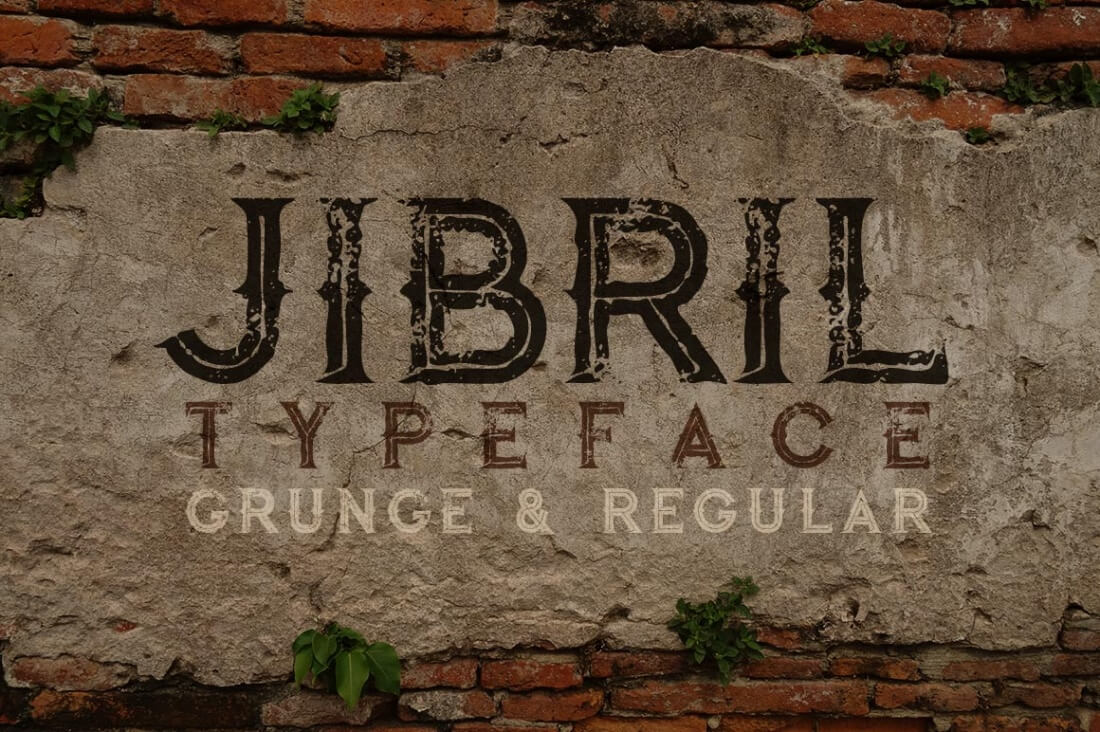
Merge the past with the present, thanks to this incredible Mighty Deal! This mega bundle offers up 12 fantastic font families, all done in a retro, vintage and grunge style. Counting in a variety of different styles, you'll take home 48 unique fonts in 1 super-discounted package! But there's more! Many font families also feature bonus graphic elements such as logo templates, badges and even hi-res textures.
Highlights:
- Grab hold of an even dozen Font Families with this terrific typeface collection!
- With the various font styles (from regular to bold to inline), this mega collection includes 48 unique fonts!
- Whether you're looking to go vintage, modern or futuristic (or any combination of those!), this collection is sure to meet your needs.
- Many font sets include bonus graphics such as textures, logo or badge templates and more.
- Where to use these fonts? Just about anywhere you'd like! They're perfect for posters, T-shirts, stickers, signs, Web templates and more.
Take a closer look at the 12 font families included in your deal:
Almanac
Be big and bold with Almanac, a modern grunge font with 4 different styles.
Anabel
Add a cool vintage style to your artwork with the Anabel Family, made up of 4 regular and grunge fonts.
Atara
Vintage meets modern with the grunge-filled Atara font family, sporting 4 different font styles from regular to inline grunge.
Capella
Capella is a great grungy typeface featuring 4 different fonts, plus Second Caps Alternatives.
Chocoleta
Get real creative with the brush typeface Chocoleta, consisting of 3 font files, 10 grunge hi-res textures and a slew of transparent PNG shapes for that extra special touch.
Jibril
With some sharp curves, the Jibril typeface with its 4 font styles is a really unique way to add some vintage style to your art.
Regolith
A creative grunge and brush typeface, Regolith offers up 3 different fonts, as well as 32 transparent PNG shapes, and 24 hi-res grunge textures!
Rolla
The Rolla Font Family is a truly creative geometric style typeface with 4 different styles, as well as a bonus set of rectangle logo and badge templates.
Sailor
Head for the High Seas with the Sailor Font Family, made up of 5 big, energetic typefaces, great for a vintage, as well as modern, look!
Speed Hunter
Get the lead out with Speed Hunter, a fast-moving custom font family consisting of 4 different styles, as well as bonuses like 4 logo and badge templates, and a set of 4 grunge textures in both color and black versions.
Square Space
Futuristic meets vintage with the Square Space Font Family, a creative geometric typeface offering 4 different styles. Plus: Get a bonus set of 4 logo and badge templates in various file formats!
Ultimatum
Whether you're looking to add a modern feel or a vintage touch to your latest project, Ultimatum and its 5 unique fonts are here to help!